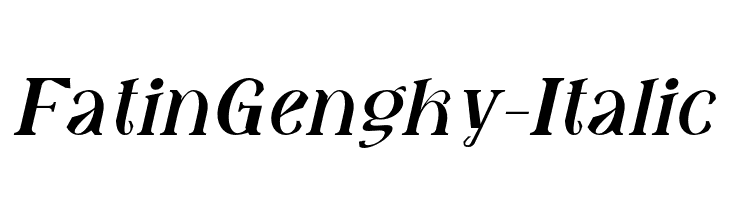
A playful, bold font with rounded, thick strokes and a hand-drawn feel.
A bold, expressive handwritten font with dynamic cursive letterforms.
A playful, casual handwritten font with uneven strokes and a friendly appearance.
A playful, hand-drawn font with a bold, cartoonish style.
A bold, energetic handwritten font with dynamic strokes and a playful appearance.
A bold, hand-drawn font with an energetic and playful style.
A bold, brush-style font with a rough, hand-painted appearance.
An ornate and decorative font with elaborate curves and flourishes.
A bold, textured, and expressive handwritten font with a brush-like appearance.
A bold, decorative font with jagged, flame-like edges for a dynamic look.
A bold, textured script font with a brush stroke appearance.
A bold, distressed font with a rugged, grunge-like appearance.
A bold, distressed font with a grunge texture and dynamic style.
A bold, expressive font with a hand-painted, brush-like style.
A bold, rugged font with a hand-crafted, distressed appearance.
A bold, playful font with a distressed, hand-crafted look.
A bold, playful font with dynamic and slightly irregular letterforms.
A bold, geometric font with a modern and structured design.
A bold, condensed font with strong, uniform strokes and high contrast.
A bold, condensed font with strong vertical lines and tight spacing.
A playful and dynamic handwritten font with bold, expressive letterforms.
A playful, handwritten font with a friendly and approachable style.
A playful, casual handwritten font with fluid strokes.
A playful, hand-drawn font with bold, rounded characters.
A fluid, elegant script font with a handwritten appearance.
A dynamic and elegant script font with fluid, cursive letterforms.
A bold, playful handwritten font with a lively and casual style.
Playful handwritten script font.
Bold, rounded, playful display font with a hand-drawn look.
Bold, dripping display font with a horror vibe.
A bold, gothic-inspired display font with sharp, elongated features.